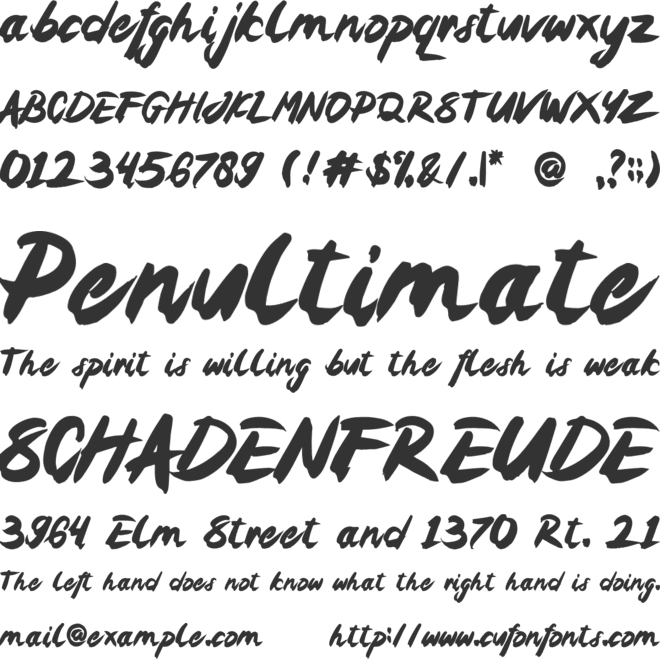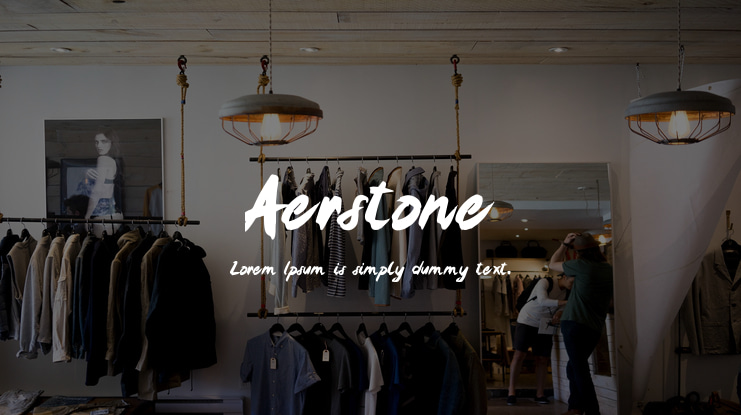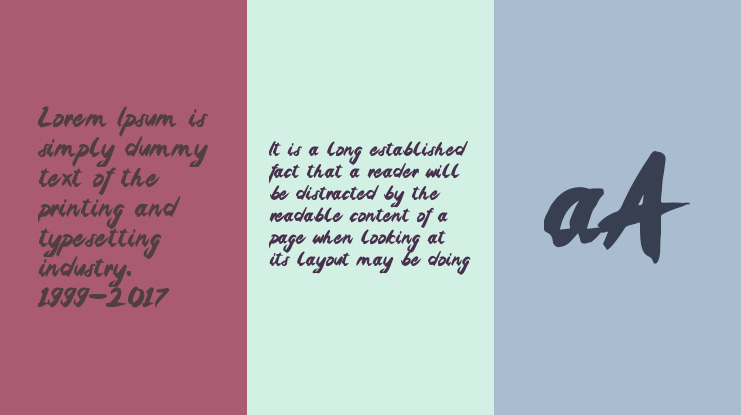
Aerstone Font
Mohamad Rois Ngainul Yakin
Aerstone is a handbrush font with a great personality for outdoor or events. It will elevate a wide range of design projects to the highest level, be it branding, headings, wedding designs, invitations, signatures, logos, labels, and much more!